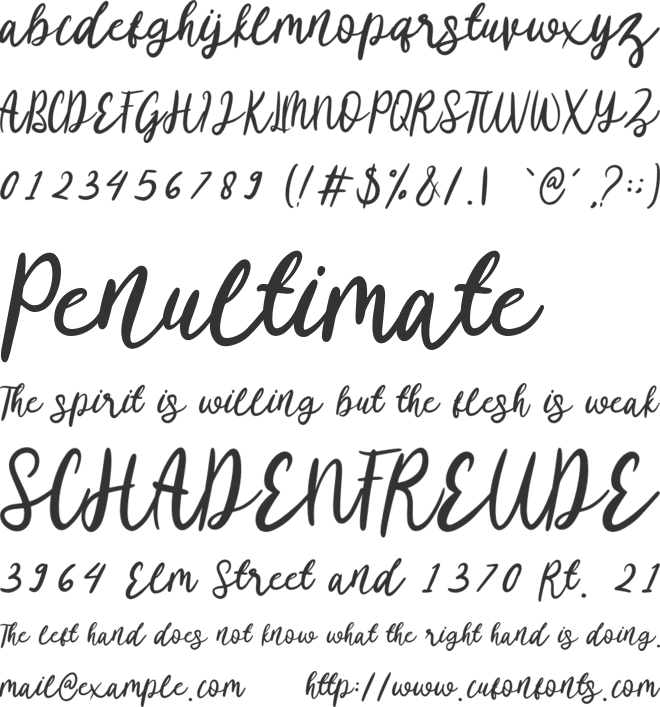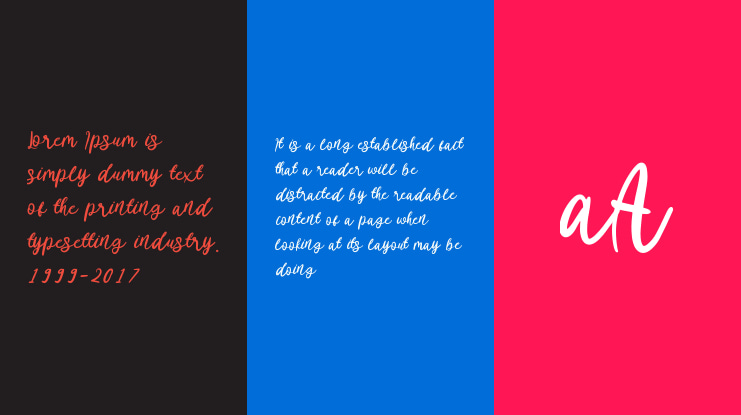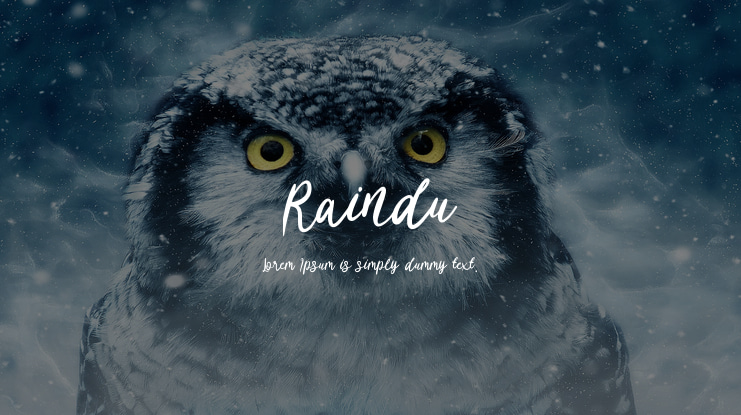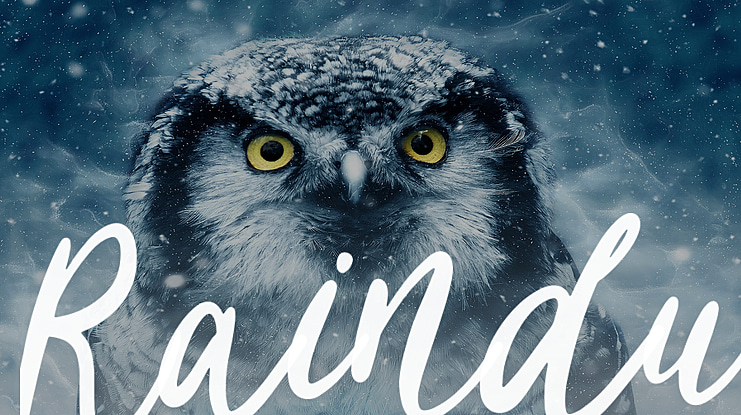
Raindu Font
Raindu is a unique and interesting handwritten font. Incredibly versatile, this font will fit a wide pool of designs.
Fall in love with its incredibly stylish look and use it to create spectacular designs!